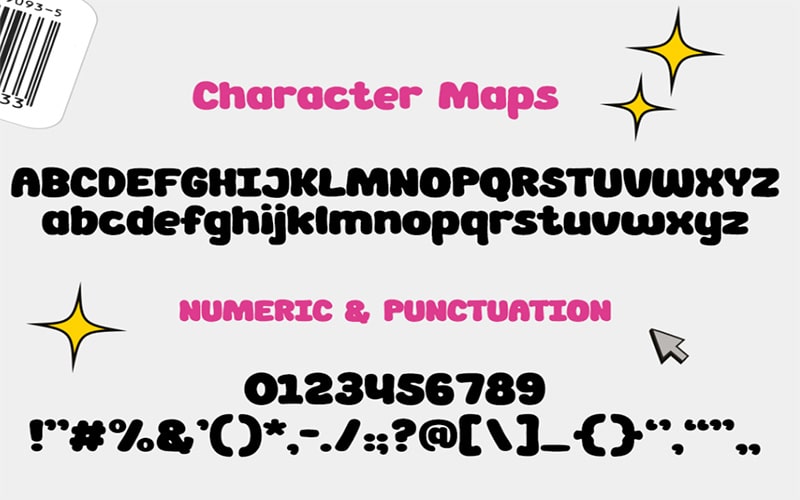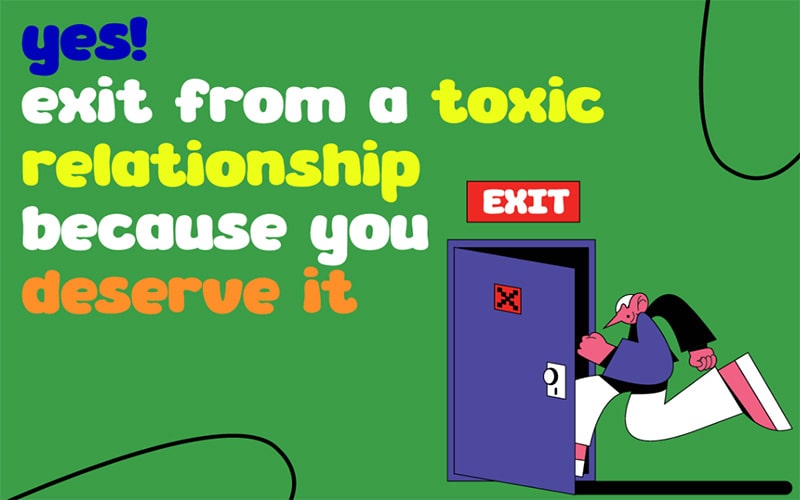
Gummy Bear Font is a fancy and display typeface that has an elegant clean texture due to its unique appearance. Pinisiart Foundry took charge of designing and releasing it.
It is available in a single style. Moreover, it contains unique characters including uppercase, lowercase, numbers, and punctuation marks. let’s look at its texture in the given picture.
Gummy Bear Font